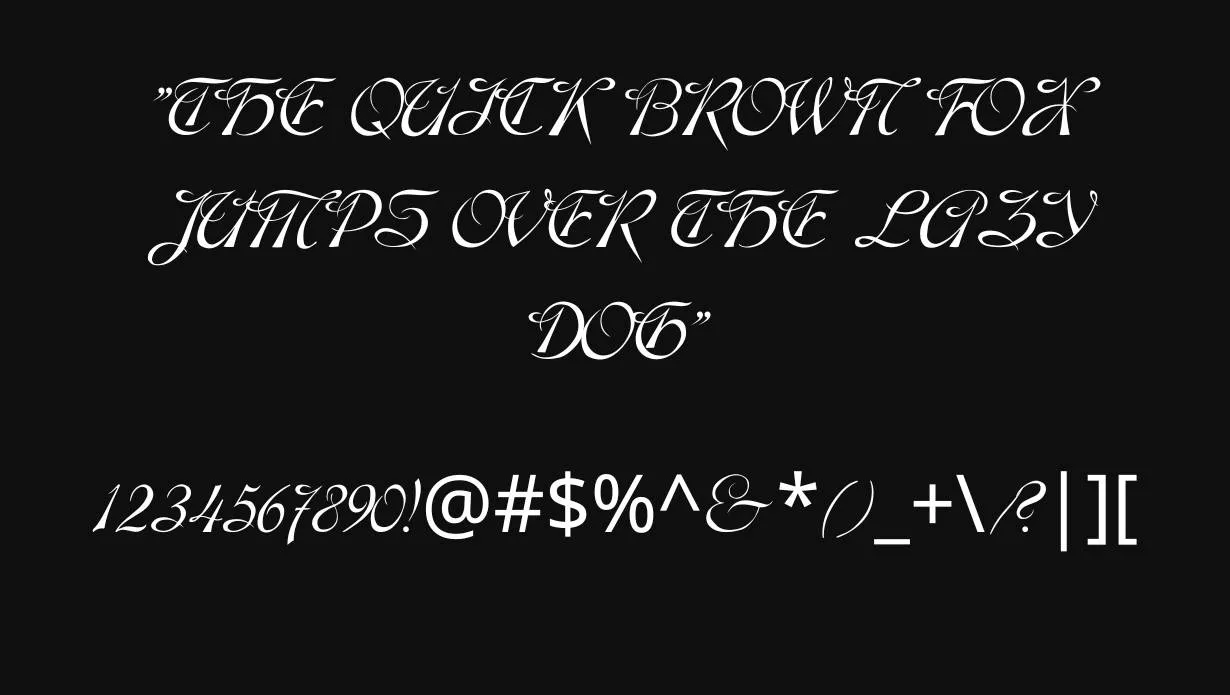
Here we talk about a very beautiful script typeface Dobkin Font. This amazing font was designed by David Rakowski and launched by Fantazia Fonts Sounds. The look of this font is very stylish and modern calligraphy font. It was created in 1992. The weight of this font is semi-light and its width is medium(normal).
This font contains 91 characters, 86 glyphs, and 1400 units per Em. Unicode supported 1.0 and BMP only. Basic languages supported Latin and Symbols.
| Name | Dobkin Font |
| Designer | David Rakowski |